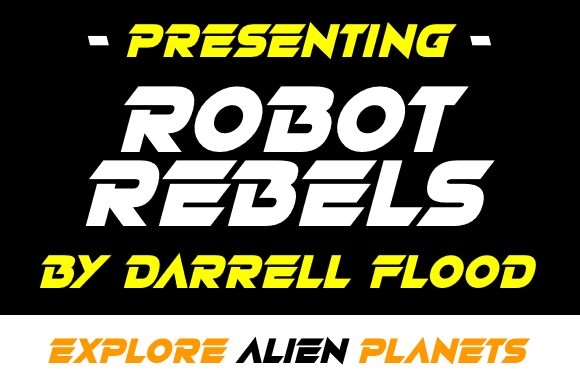
Robot Rebels
Robot Rebels, a bold and futuristic display font crafted by Hawtpixel, captivates with its striking expanded letters and a distinct mechanical aesthetic. Exuding a sense of strength and technological innovation, this font commands attention, making it a standout choice for modern and avant-garde designs. Its bold, expanded letterforms create a powerful visual impact, while the angular, futuristic shapes evoke a sense of dynamism and progress.
This versatile font lends itself well to a variety of design applications, from eye-catching headlines and impactful logos to attention-grabbing branding and packaging. Its bold, expansive nature makes it an excellent choice for projects seeking to convey a sense of energy, innovation, or a futuristic vision, such as tech startups, sci-fi-inspired designs, or cutting-edge products.